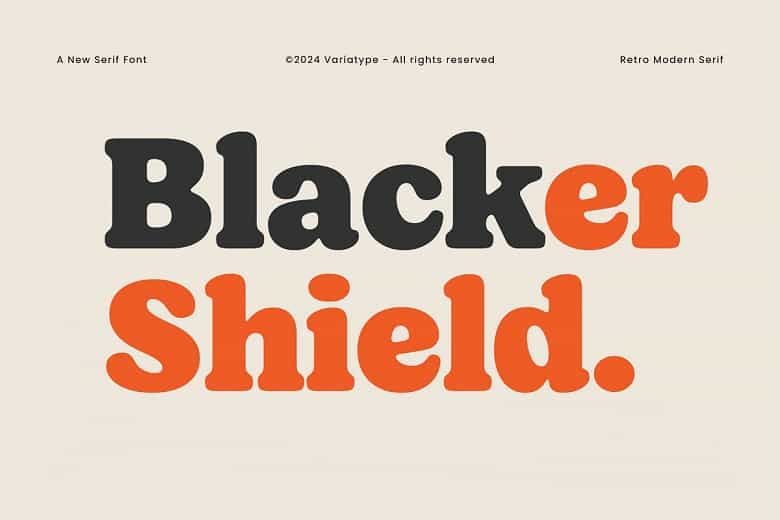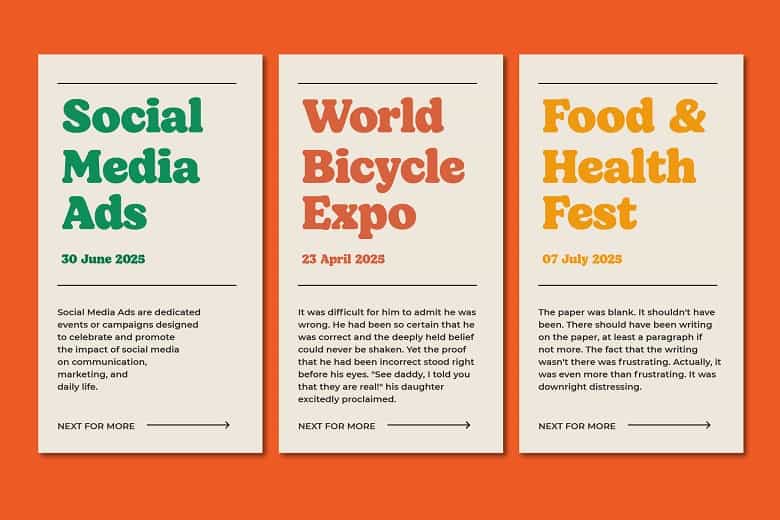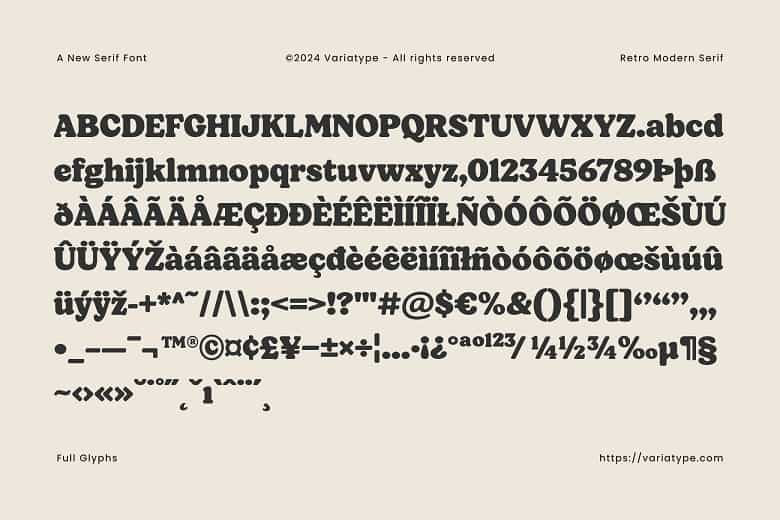
Blacker Shield is a modern and elegant serif font with a touch of retro style and feel. Its strong, individual serifs and straight edges give it a timeless elegance that is at the same time not outdated. Great for powerful headlines, logos, and attention grabbers.